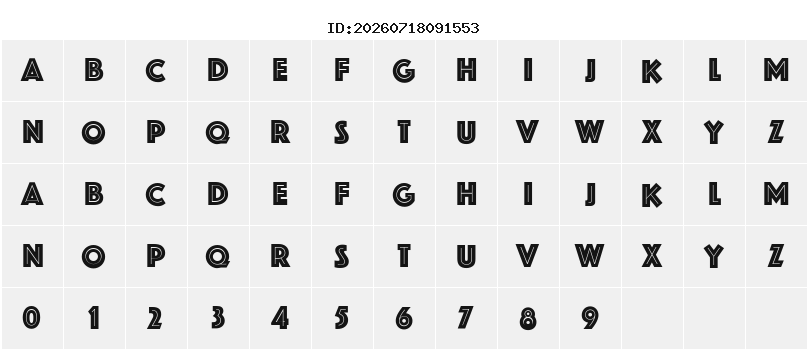
About CgPhosphor.ttf
CgPhosphor.ttf is a modern, elegant sans-serif font designed for ultimate readability and visual harmony. Perfect for branding, headlines, web design, and print materials.